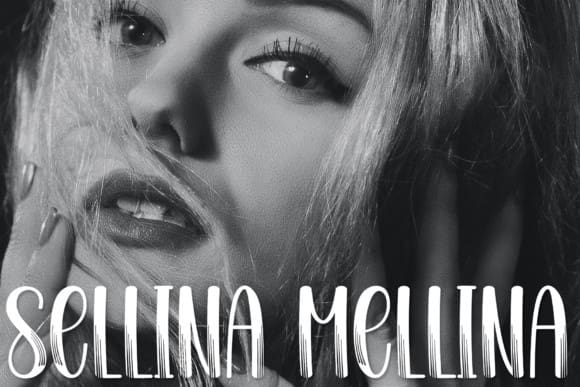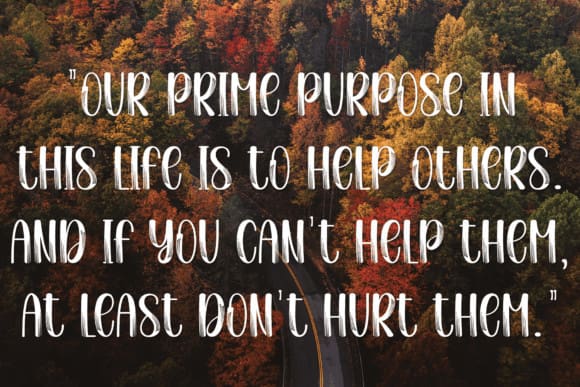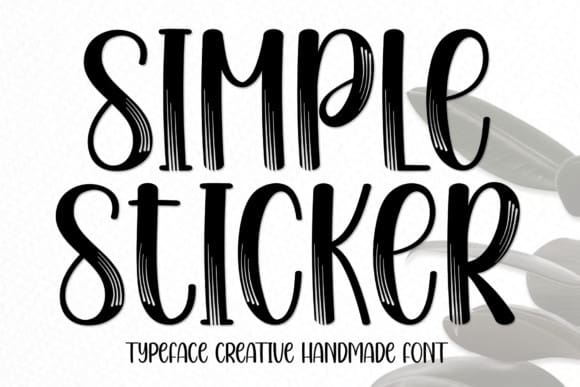
Simple Sticker Font
Simple Sticker Font is a cool and casual display font. No matter the topic, this font will be an incredible asset to your fonts’ library, as it has the potential to elevate any creation.